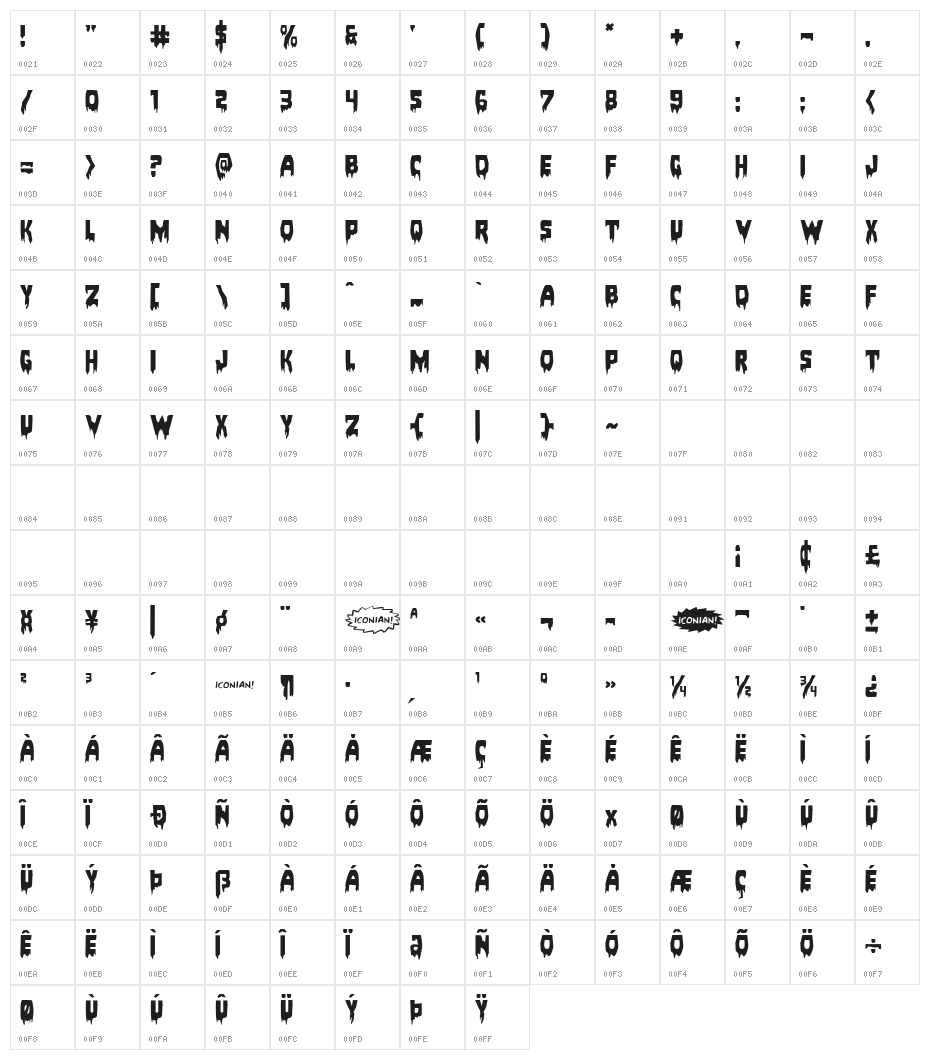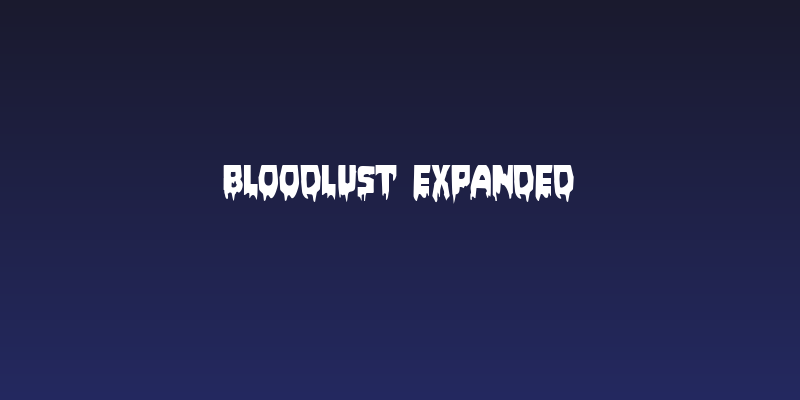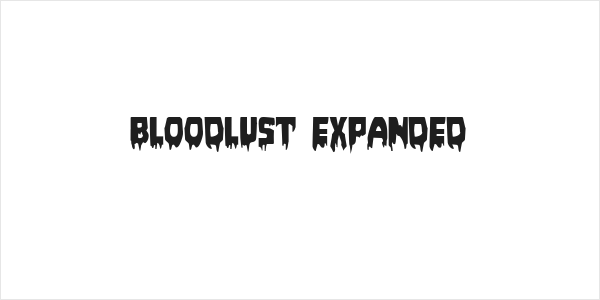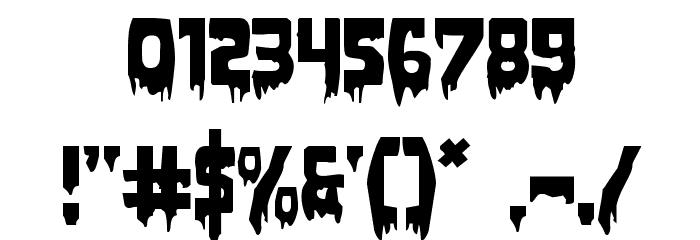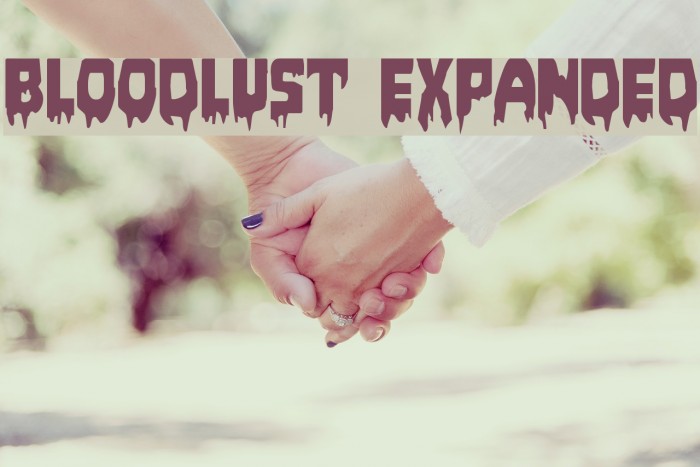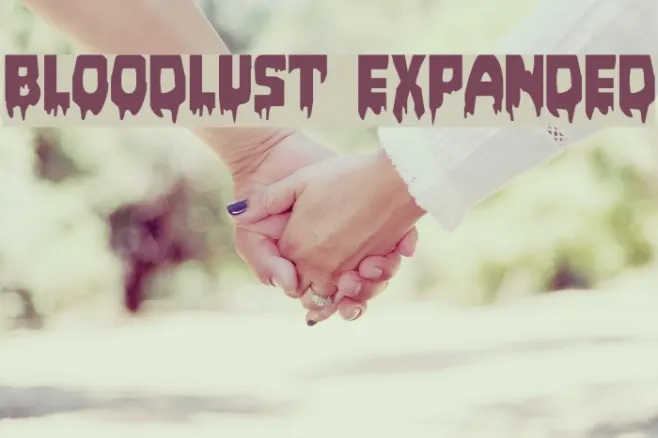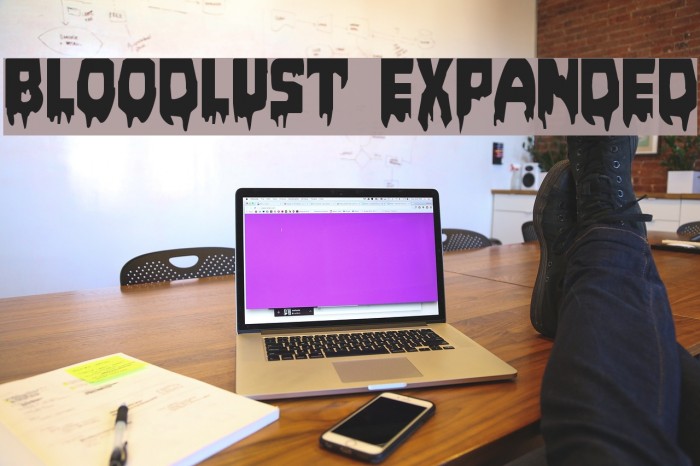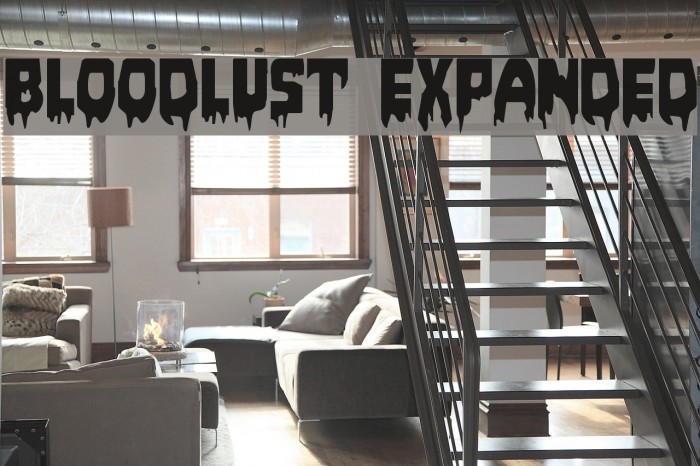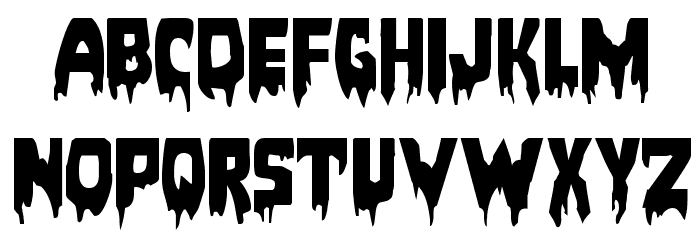
Bloodlust Expanded Font
Bloodlust Expanded Description
This font features a bold and dramatic design with a dripping effect that evokes a sense of horror and mystery. The characters are thick and heavy, with jagged edges that resemble dripping liquid, creating a striking visual impact. The uppercase and lowercase letters maintain a consistent style, enhancing the font's cohesive appearance. Numbers and special characters are designed with the same dripping effect, ensuring uniformity across all elements. This font is perfect for themes related to horror, Halloween, or any project that requires a spooky and eye-catching typeface.